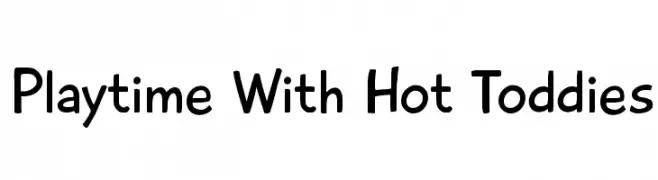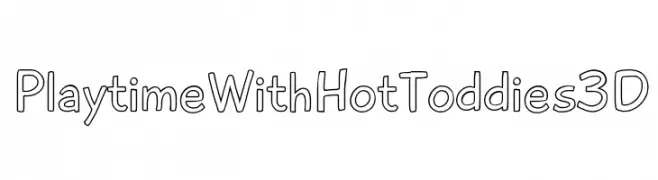
A playful, handwritten font with rounded edges and a casual style.
A playful 3D outline font with bold, rounded characters and a whimsical style.
A playful, oblique font with smooth, rounded characters and a dynamic style.